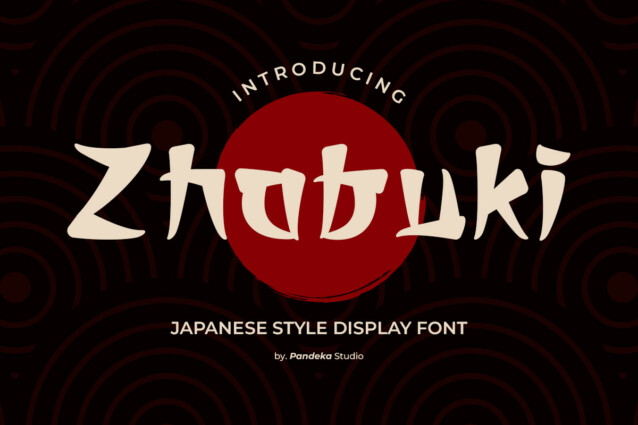
Zhabuki Font is perfect for Japanese theater productions, traditional kabuki performances, Japanese cultural festivals, samurai-themed designs, Oriental drama materials, Japanese martial arts promotions, traditional tea ceremony invitations, zen garden signage, Japanese calligraphy workshops, and dramatically expressive marketing communications.
Zhabuki Font is exciting because it embodies the dramatic intensity and stylized elegance of traditional Japanese kabuki theater with its boldly theatrical letterforms that seem painted with the expressive brushstrokes of stage makeup and carry the powerful emotional range that transforms simple stories into profound human dramas. Its dramatically stylized character design reflects both the rigorous discipline required for kabuki mastery and the explosive creativity that makes traditional Japanese performance art eternally captivating, making it perfect for brands celebrating Japanese cultural heritage and dramatic expression.
Zhabuki Font family includes light, regular, medium, bold, and black weights, each with corresponding italic versions. The font family also features Japanese ornaments, kabuki-inspired ligatures, theatrical symbols, and dramatic decorative elements that enhance its expressive aesthetic and Japanese cultural versatility.
This dramatically expressive typeface represents the perfect fusion of Japanese theatrical tradition and contemporary design respect. Zhabuki Font Free Download enables designers to experience its theatrical potential before making a commercial commitment. The font's ability to convey both cultural authenticity and dramatic power makes it ideal for Japanese cultural institutions, theatrical companies, and performance brands targeting audiences passionate about Japanese arts and traditional dramatic expression.
Whether you're developing Japanese theater identities, creating cultural performance materials, or designing dramatic communications, Zhabuki Font brings an unmistakable sense of theatrical intensity and Japanese authenticity to every project. Its boldly theatrical character and kabuki heritage create powerful connections that resonate with audiences seeking authentic Japanese cultural experiences and dramatic artistic expression.
The font's versatility excels in cultural and performance environments where Japanese tradition and dramatic authenticity are paramount. Its expressive character makes it particularly effective for Japanese theaters, cultural centers, martial arts organizations, and performance companies seeking to establish authentic relationships with audiences who appreciate traditional Japanese arts and dramatic cultural expression.
For designers working on projects requiring genuine Japanese cultural appeal and theatrical authenticity, Zhabuki Font offers an exceptional solution. Its dramatically powerful presence and comprehensive Japanese theatrical elements provide the tools needed for creating truly authentic communications, while its expressive intensity ensures your designs capture the dramatic artistry and cultural depth that defines the most compelling Japanese performance traditions and theatrical excellence.